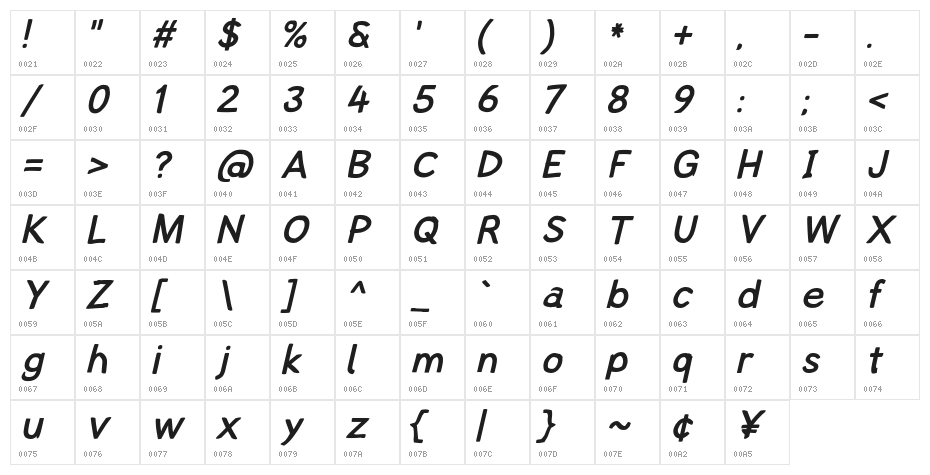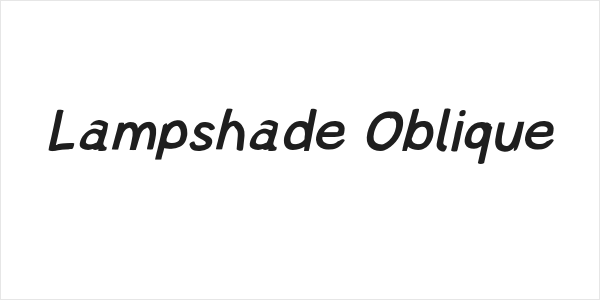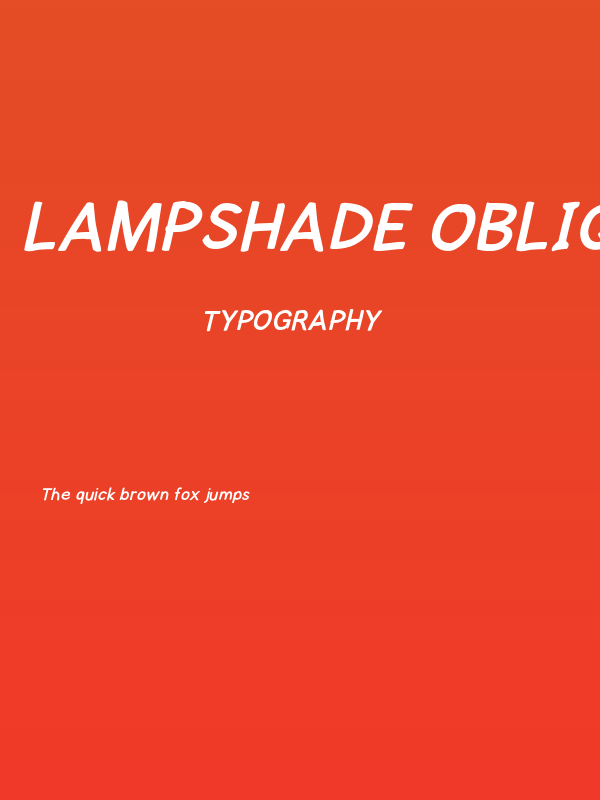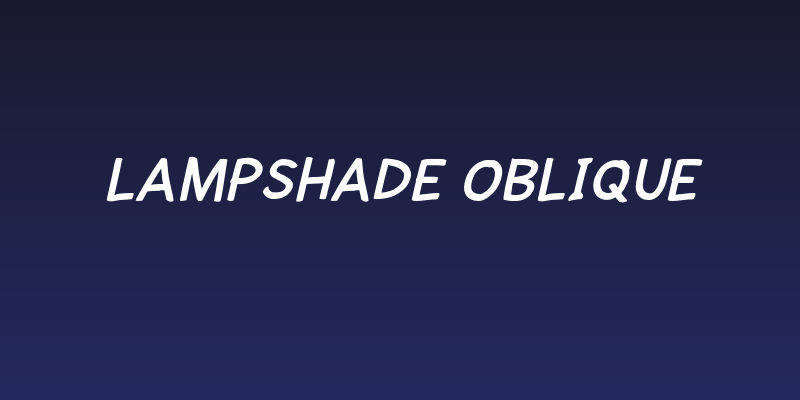
Lampshade Oblique Font
Lampshade Oblique Description
This font features an oblique style with a smooth, flowing appearance. The characters are slightly slanted, giving a dynamic and energetic feel. The strokes are consistent in width, providing a uniform look across all characters. The uppercase letters are bold and prominent, while the lowercase letters maintain a friendly and approachable style. Numbers are clear and easily distinguishable, making them suitable for various applications. Special characters are well-integrated, maintaining the overall aesthetic of the font. The design is modern and versatile, suitable for both digital and print media.
| Use Case | Headlines, Logos, Advertising |
| Proposed Projects | Ideal for branding, advertising, and editorial design projects that require a modern and energetic touch. |